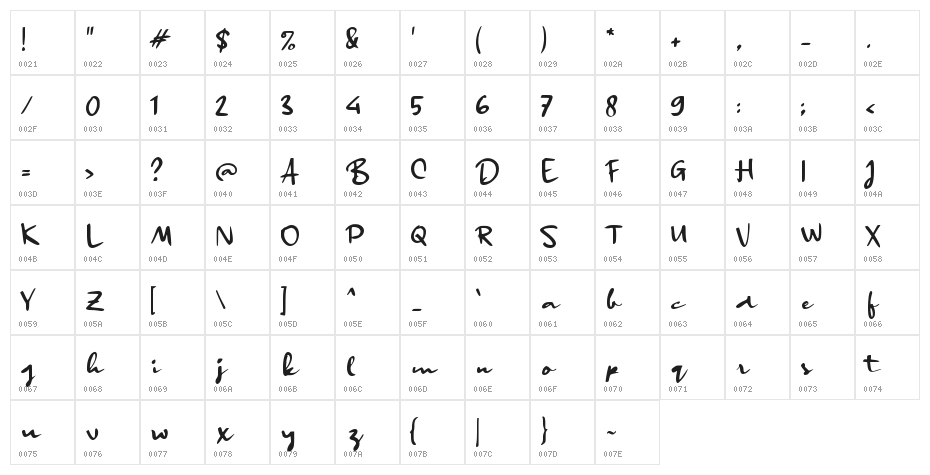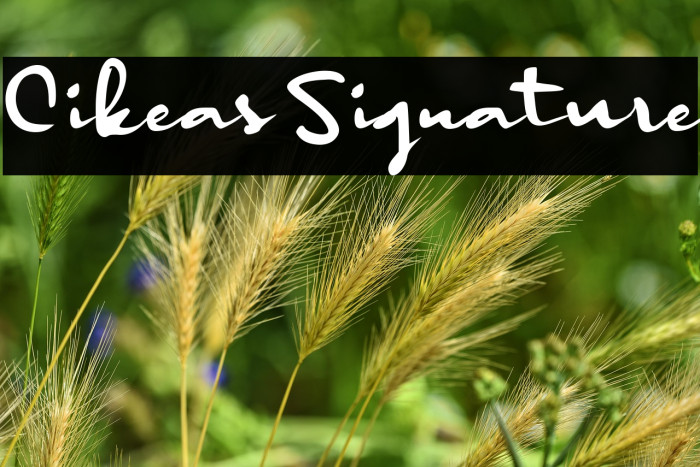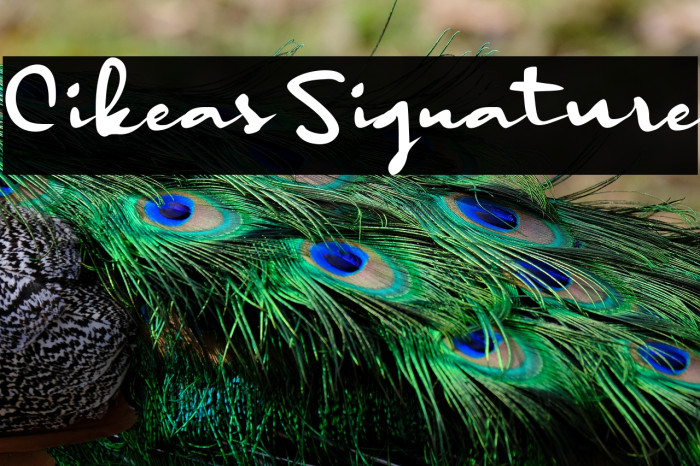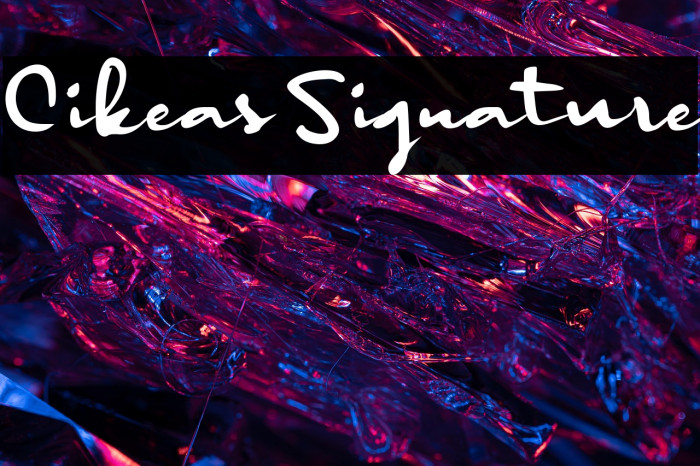
Cikeas Signature Font
Cikeas Signature Description
This font exudes a casual and personal touch, reminiscent of a handwritten signature. The uppercase letters are bold and slightly slanted, giving a sense of movement and fluidity. The lowercase letters maintain a consistent flow, with smooth curves and a natural, organic feel. The numbers are clear and legible, matching the overall style of the alphabet. Special characters are creatively designed, adding to the font's unique personality. This font is perfect for projects that require a personal, human touch, such as invitations, greeting cards, or branding materials.
| Overall Style | Casual, Personal |
| Use Case | Headlines, Logos, Personal projects |
| Proposed Projects | Ideal for invitations, greeting cards, branding, and personal projects. |